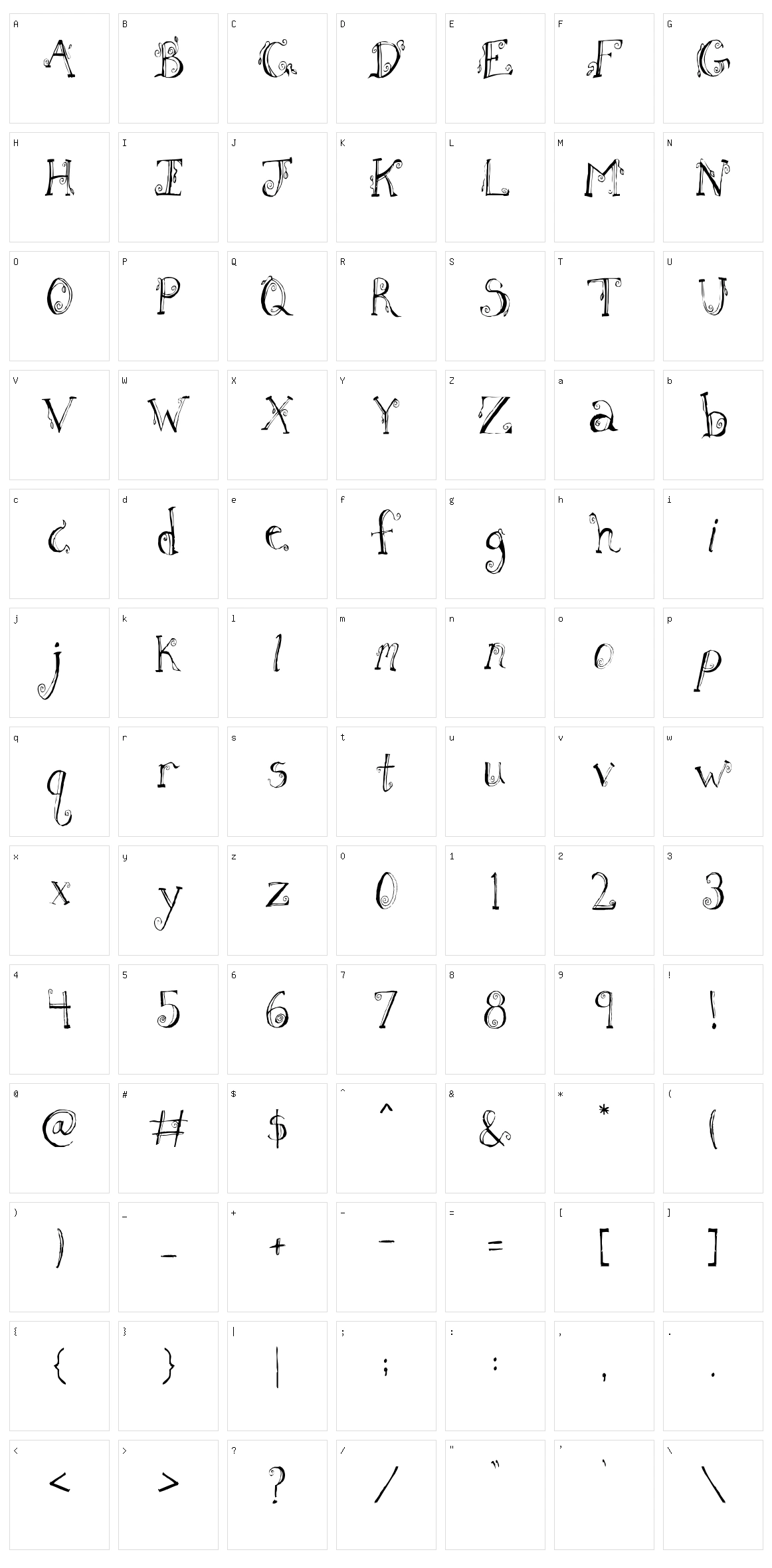
The free font Fh Letter is carefully designed by Fictionalhead Design, showcasing a thoughtful balance of creativity and usability and falls under the Script font style. When you download the ZIP file, it contains only 33.06 KB of font files, making it lightweight and quick to download. Please review the license details below to understand permitted usage and distribution rights. If license information is not available, we recommend using this font for personal projects only or contacting the author directly for commercial usage permissions.